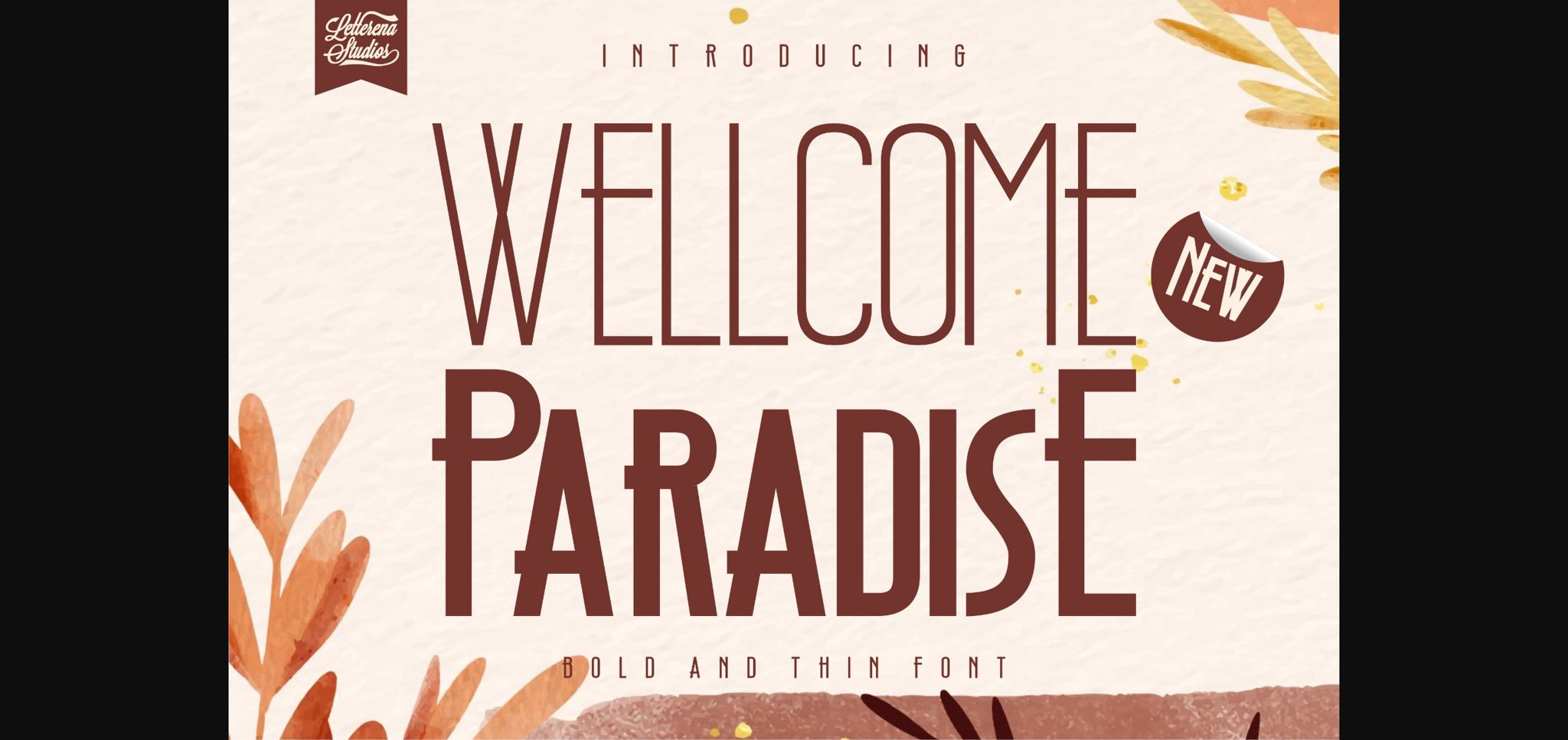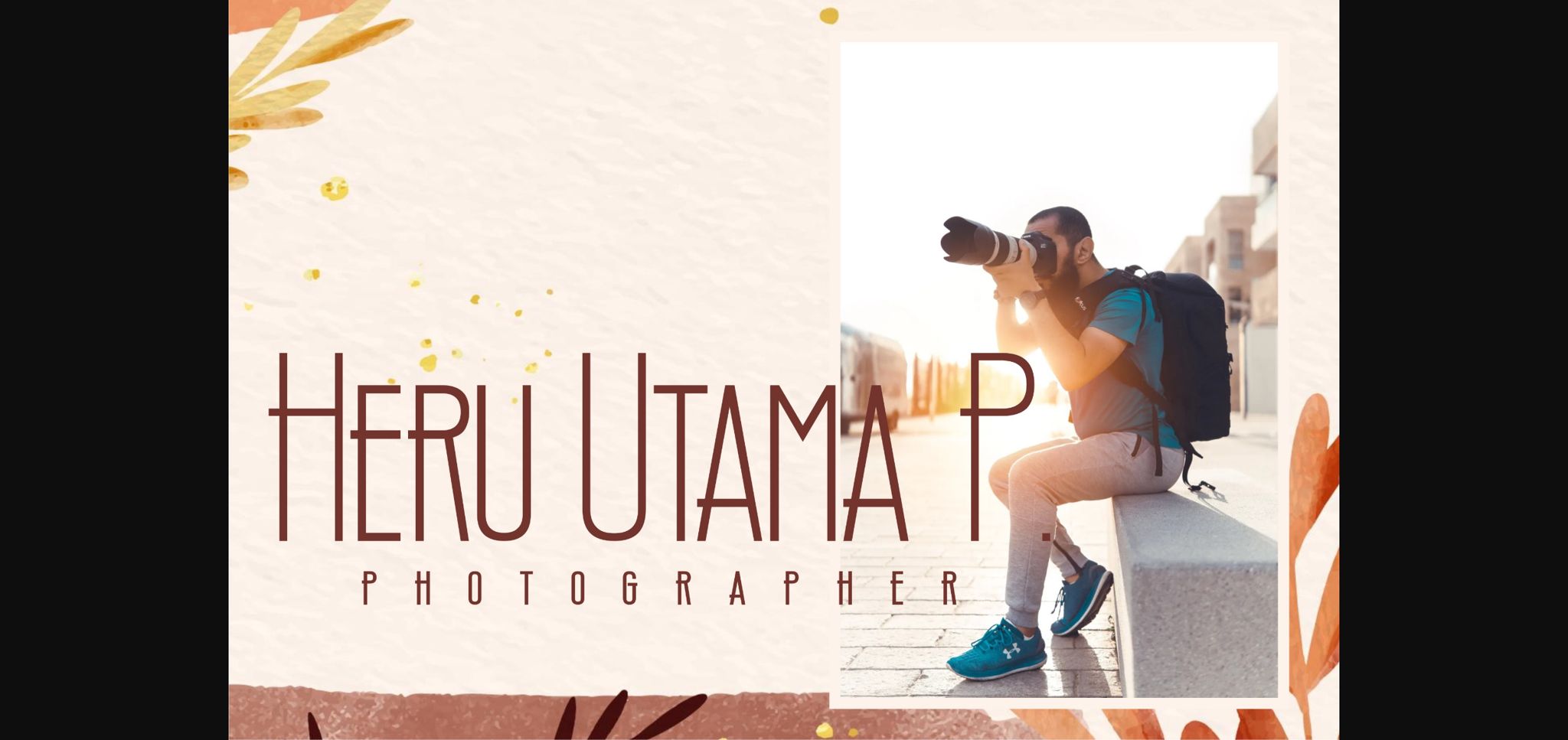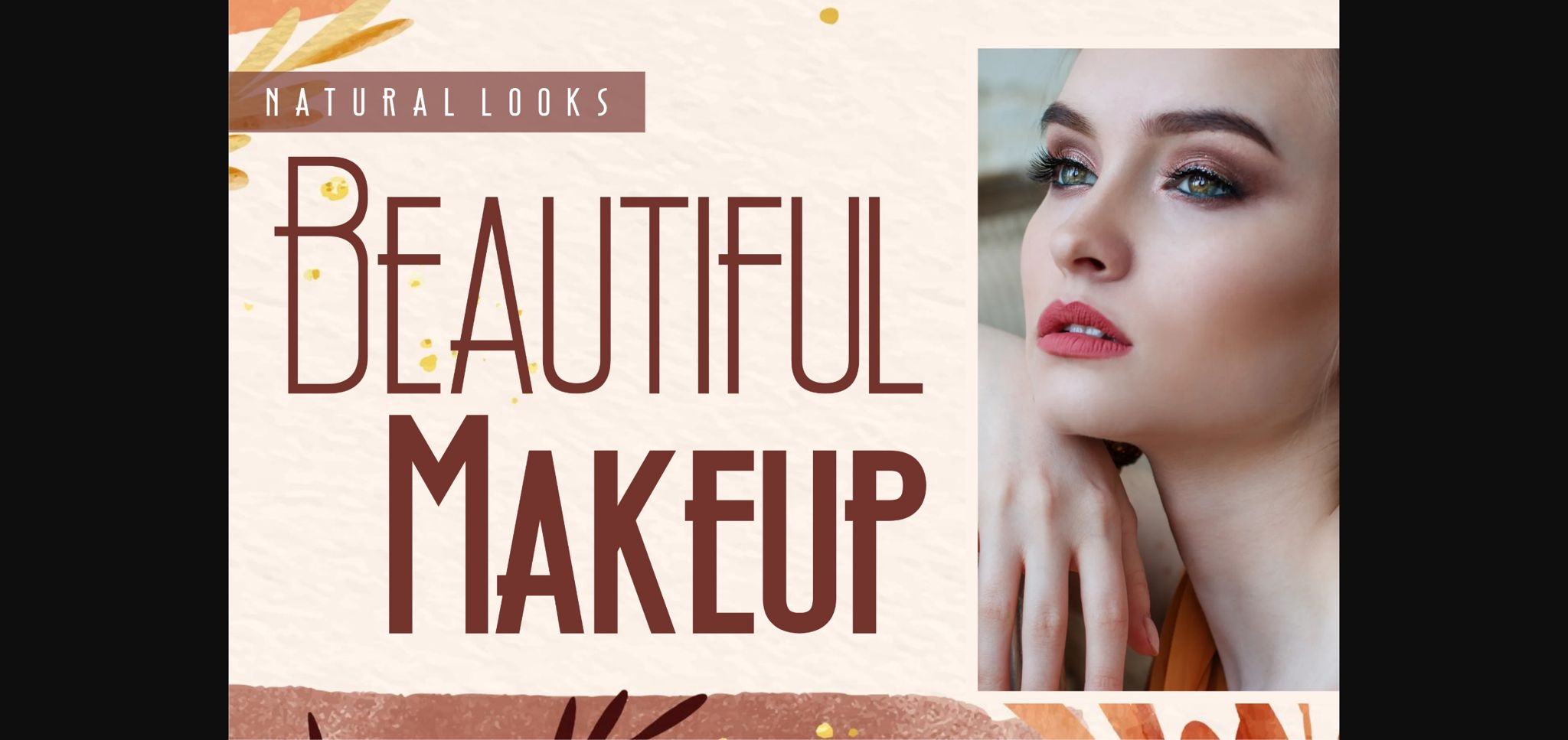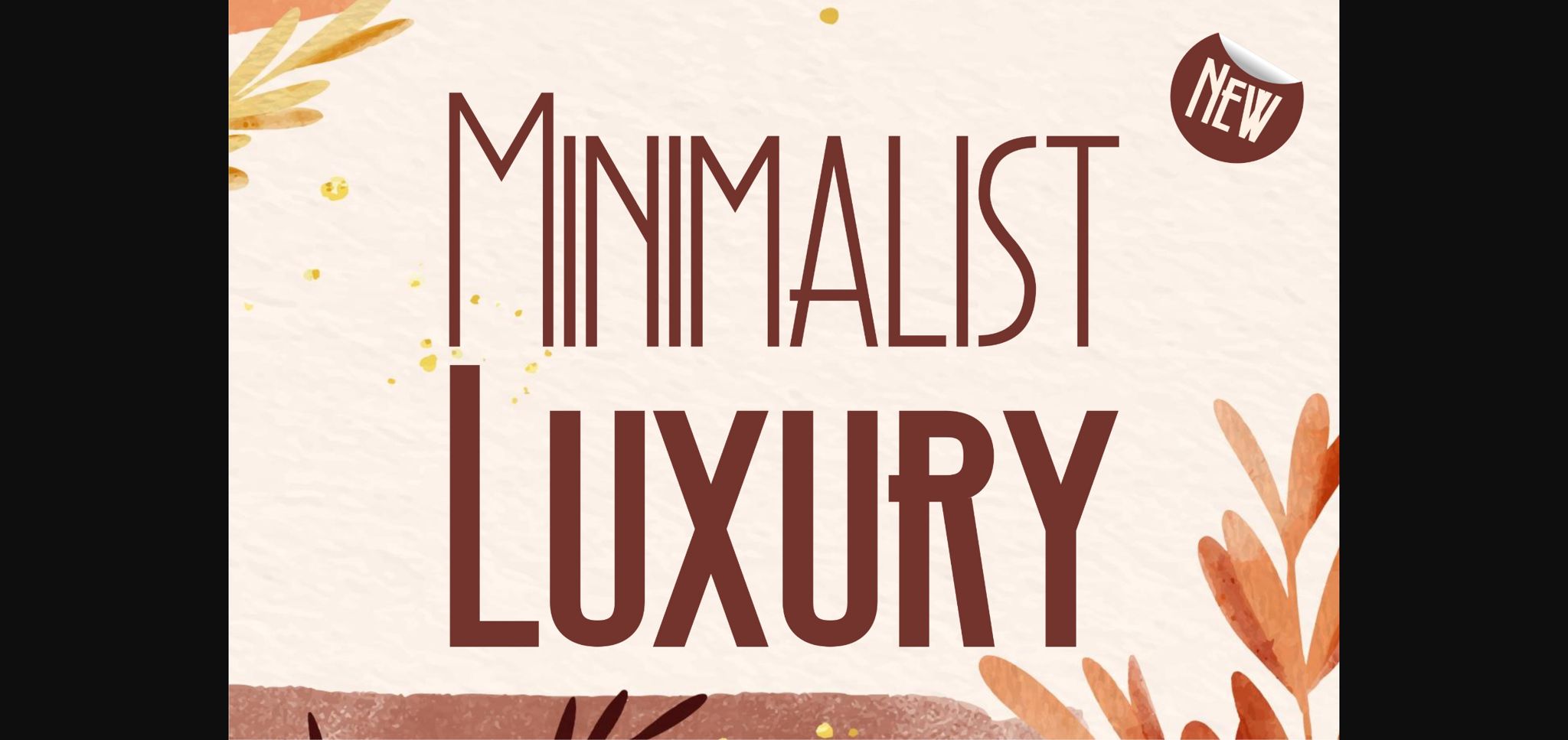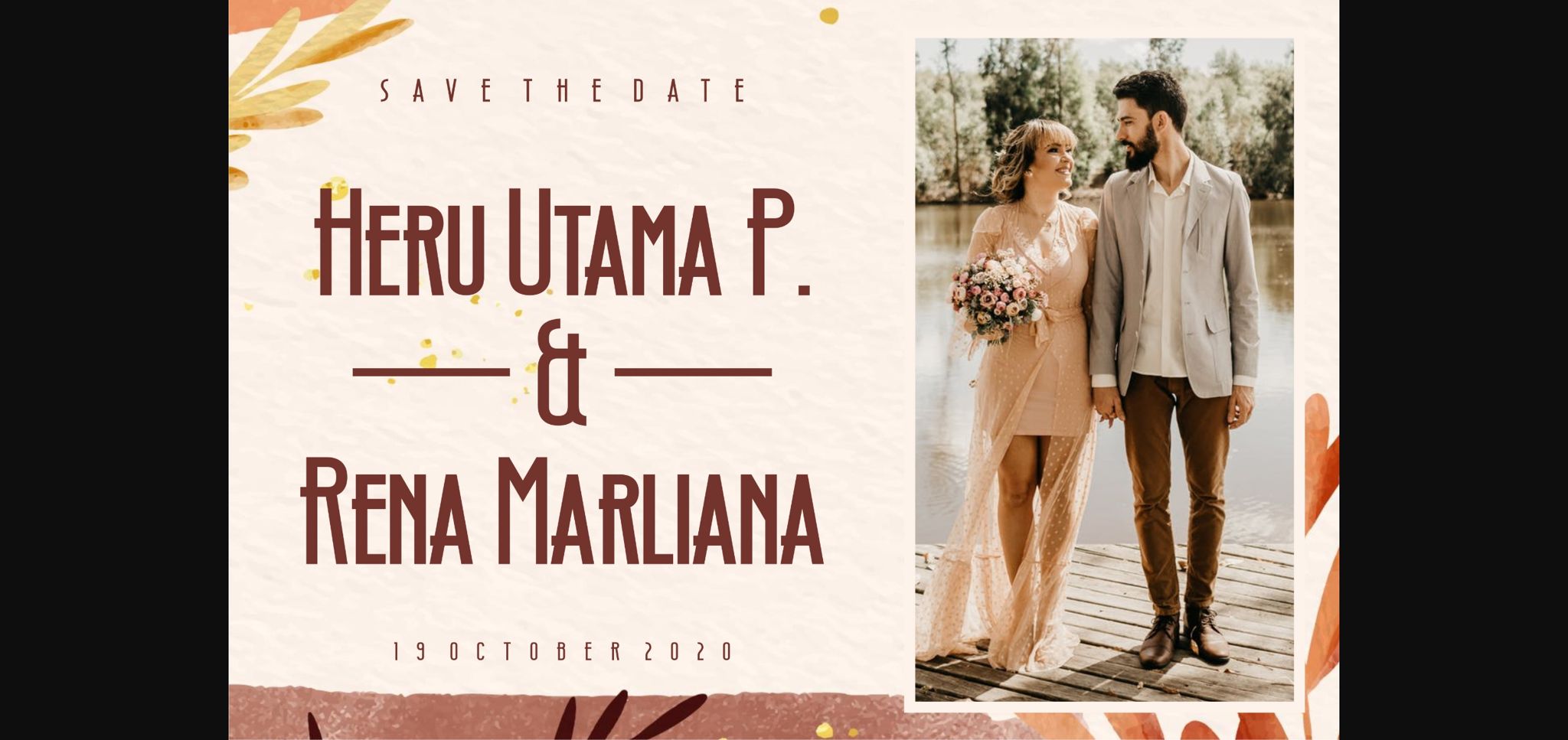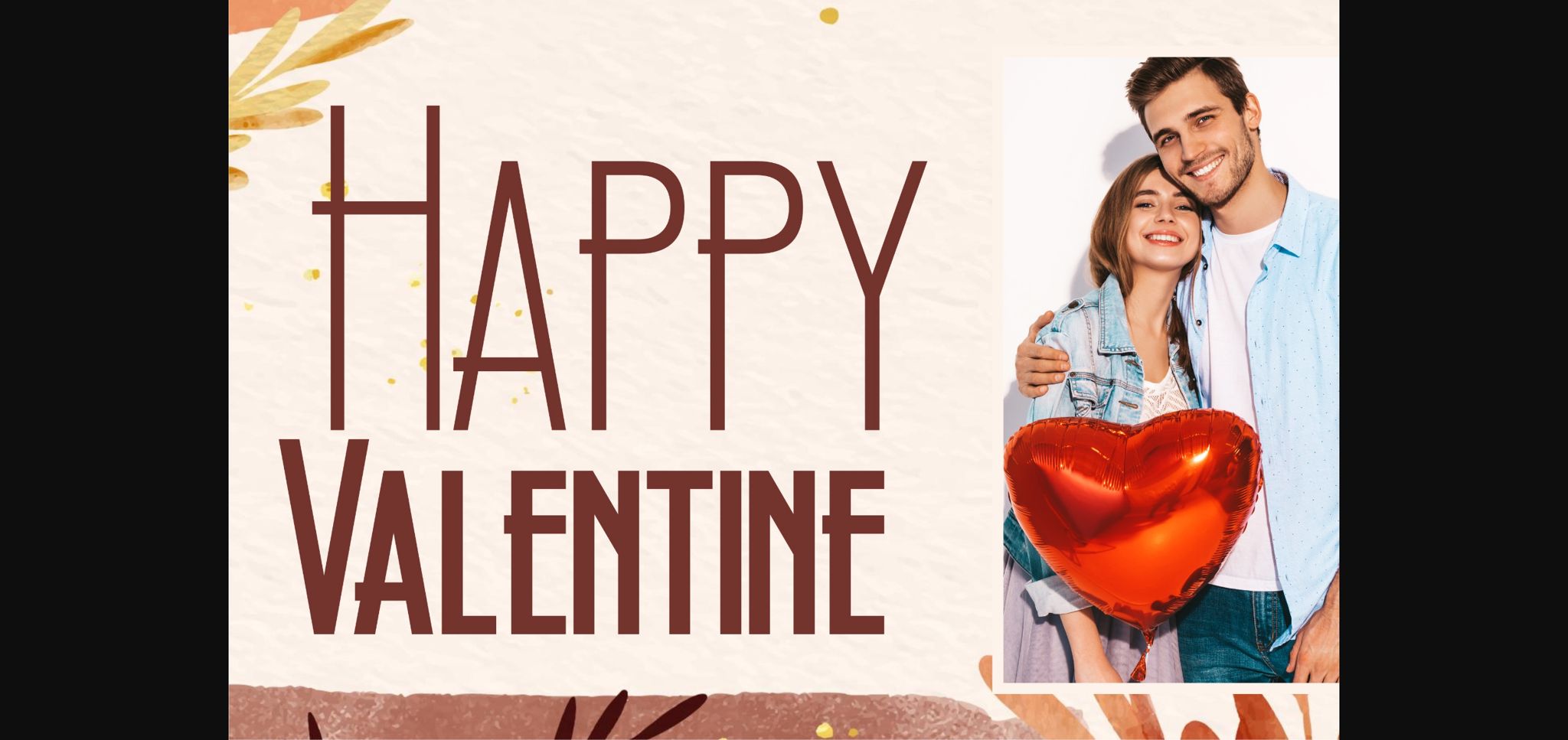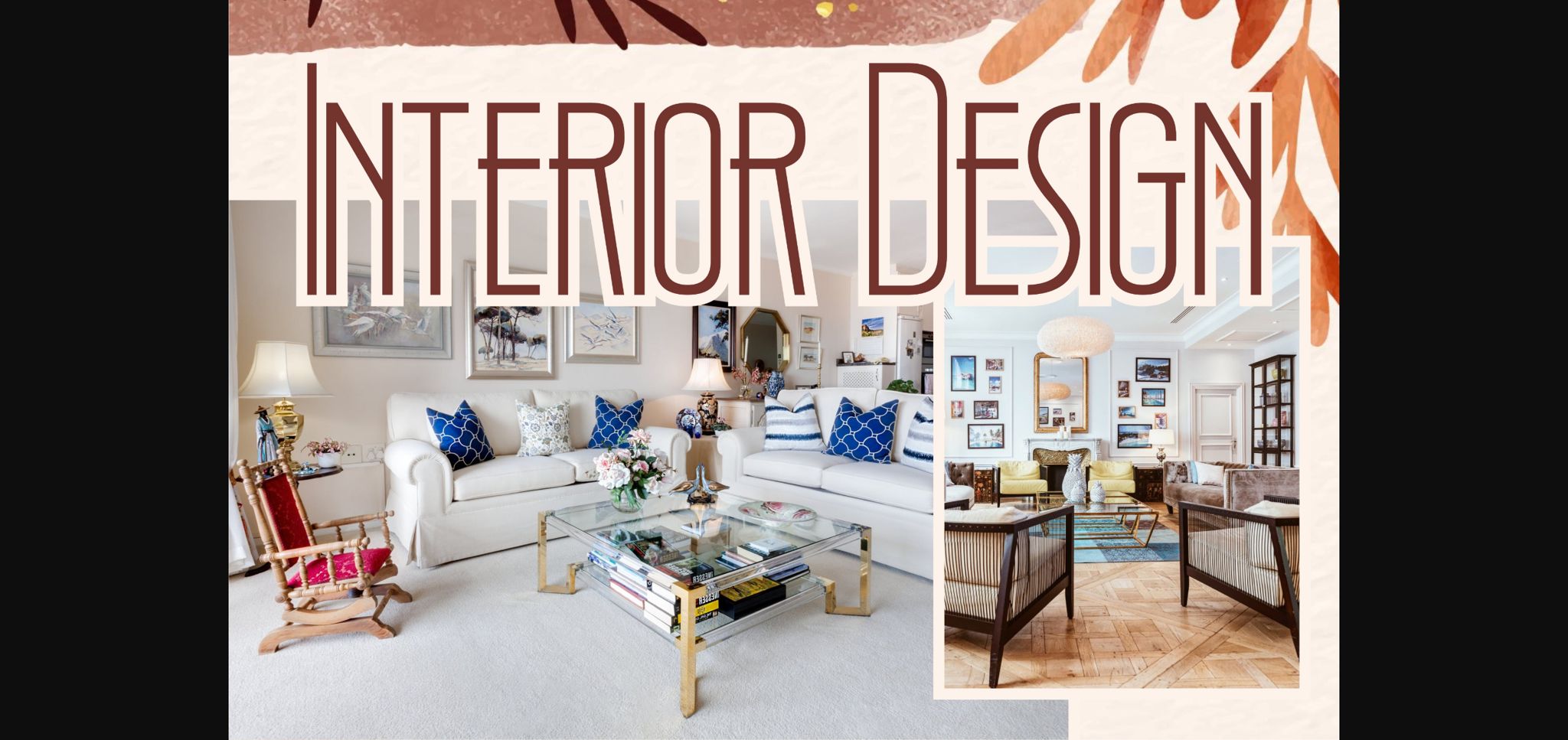
Wellcome Paradise Font
About Wellcome Paradise Font
Wellcome Paradise is a modern sans serif font, that comes in bold and thin styles. It can be used for various purposes such as logos, wedding invitations, headings, t-shirts, letterhead, signage, labels, news, posters, badges and so much more.